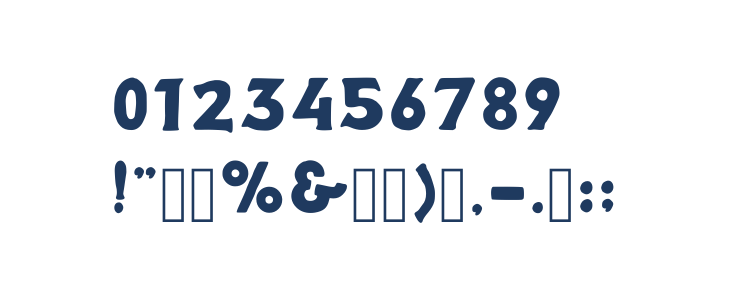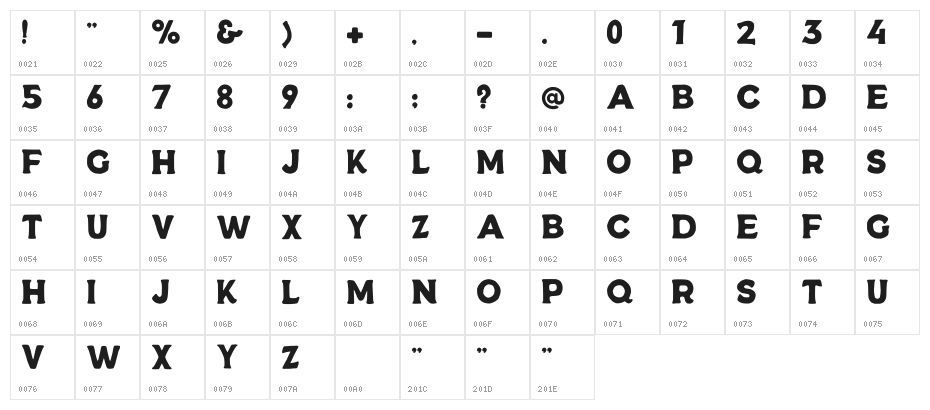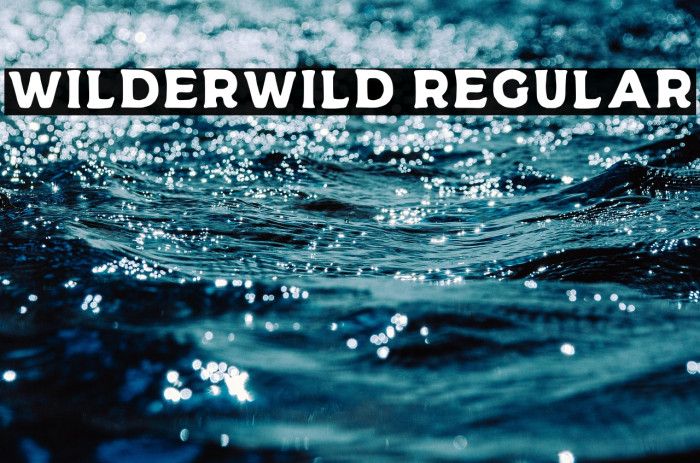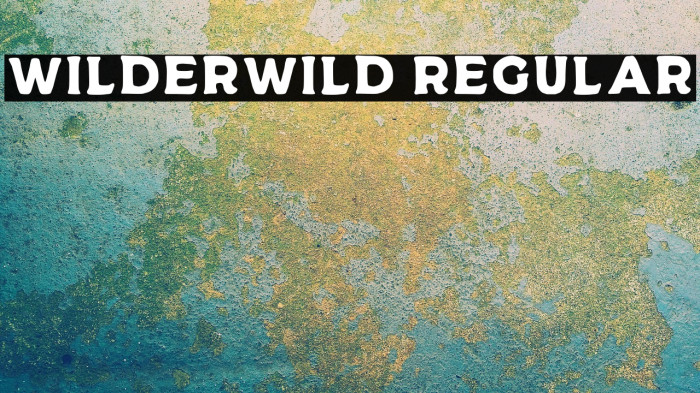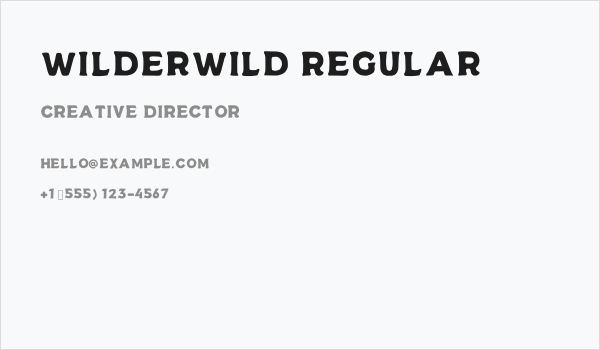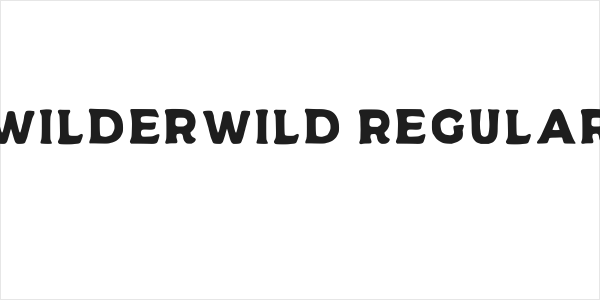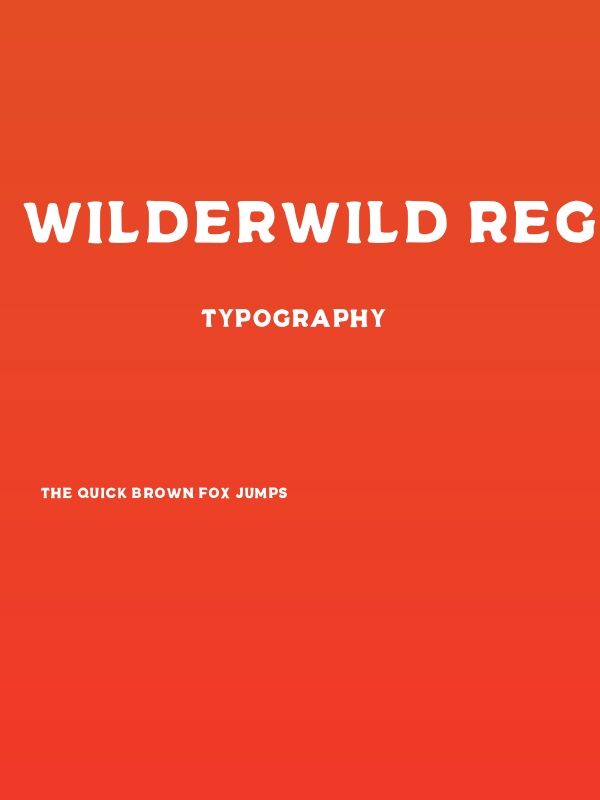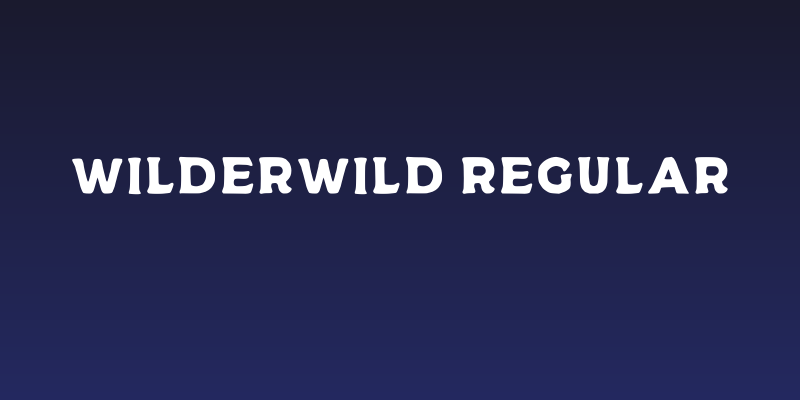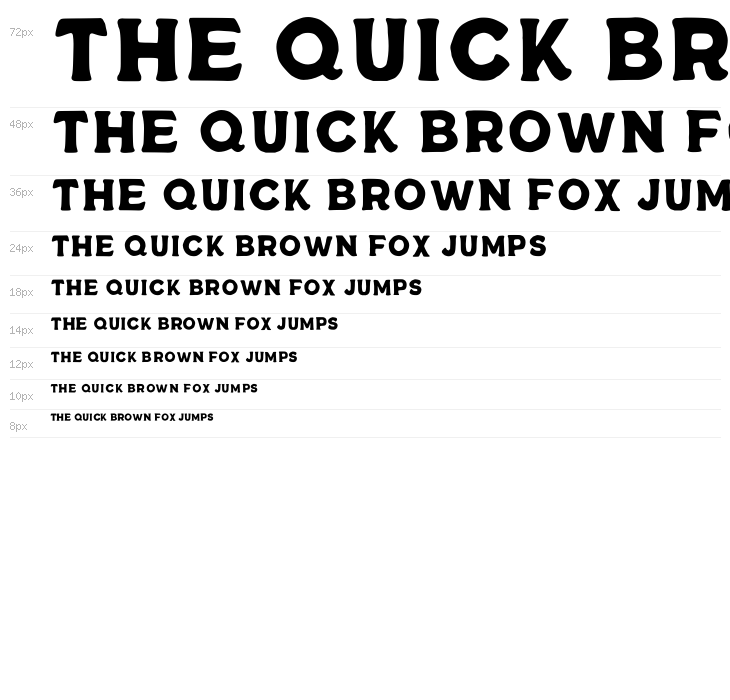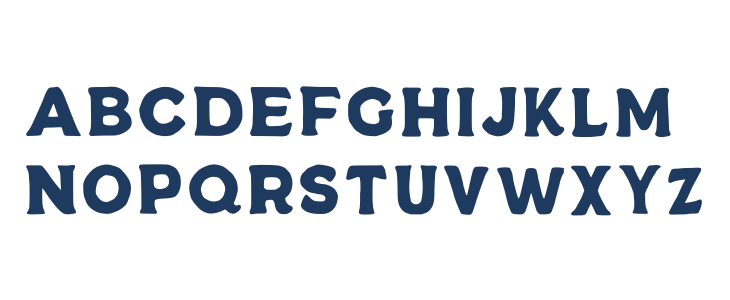
Wilderwild Regular Font
Wilderwild Regular Description
This font features a bold and playful design with a slightly irregular and organic feel. The characters are robust and have a hand-crafted appearance, which adds a unique charm. The uppercase and lowercase letters maintain a consistent style, with rounded edges and a slightly uneven baseline that gives a lively and dynamic look. The numerals and special characters follow the same stylistic approach, ensuring a cohesive appearance across all text elements. This font is ideal for projects that require a touch of whimsy and creativity.
| Overall Style | Playful, Handcrafted |
| Proposed Projects | Ideal for children's books, playful branding, posters, and creative packaging. |